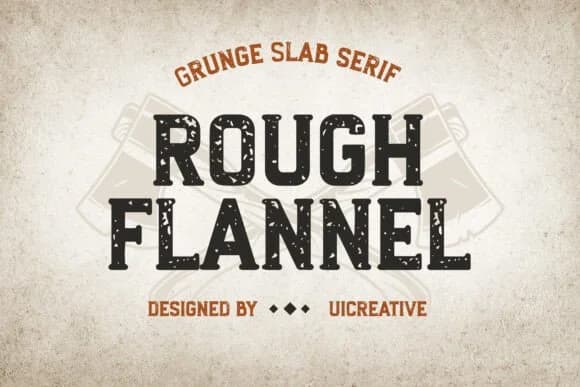
Rough Flannel by uicreativenet is a weathered slab serif that channels vintage Americana with real grit and character. Built specifically for display work, this typeface captures the tactile quality of old letterpress and hand-painted wooden signage bearing decades of outdoor weathering. You'll spot that rough aesthetic in rustic restaurant menus, craft brewery labels, retro concert posters, and weathered western saloon signage where authenticity beats slick polish every single time. The rough edges don't feel artificially distressed; they look genuinely earned through years of actual weathering and use.
Across masculine and feminine design directions alike, the heavy serifs and coarse texture do equal work. Speakeasy branding, vintage cosmetics packaging, distressed vinyl album artwork, and hand-lettered fashion editorials all fit naturally in this typeface. Storefront signage picks up a nostalgic weight that makes people stop and look twice, while fashion projects pull off the worn texture without feeling outdated or tired. At display sizes the font maintains its legibility while keeping the rough personality that makes designs stick. Its weathered surface brings genuine vintage character to any project seeking something real rather than artificially aged.
- Sturdy, Confident, Cowboy
Rough Flannel Font is a slab serif font that shines as a display or heading face. Pair it with a clean sans-serif or serif font for body text β the contrast creates a clear hierarchy while the two styles stay balanced and easy to read.